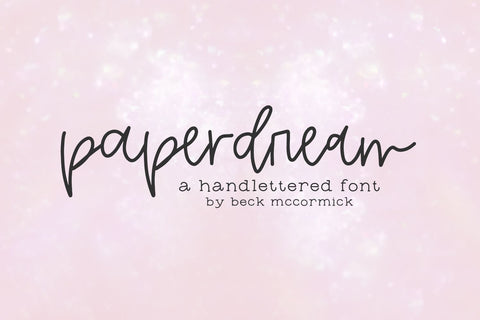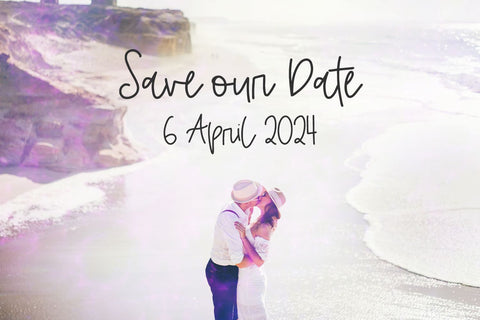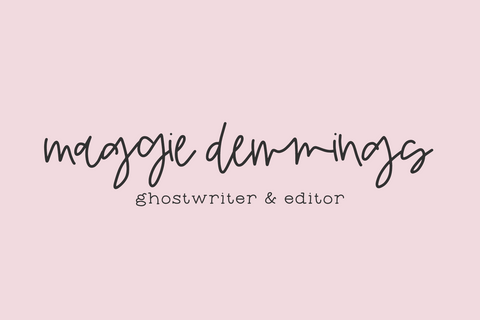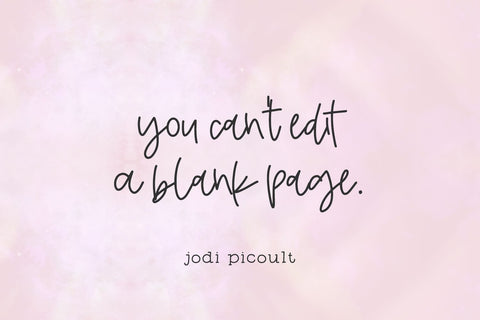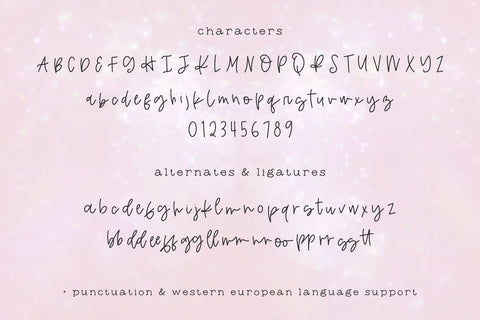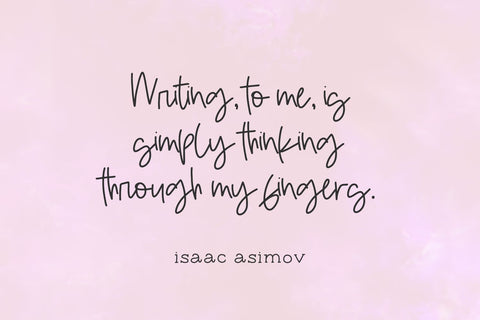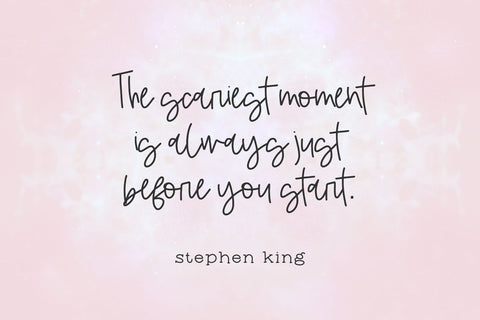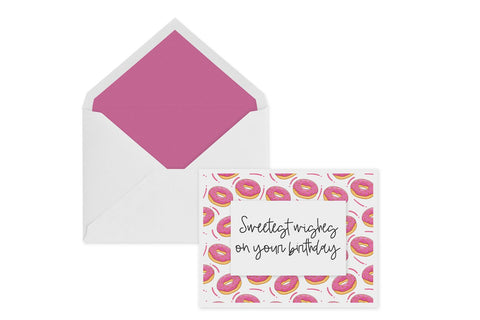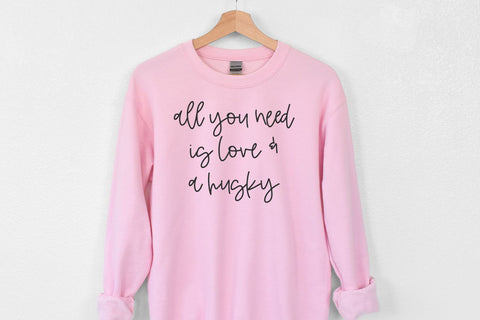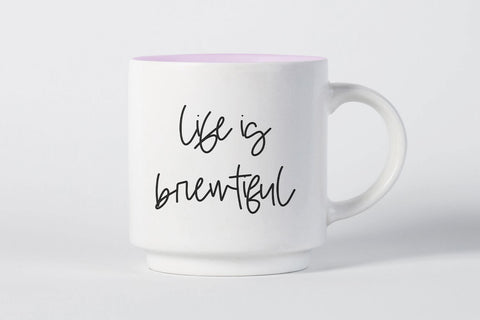
Paperdream Script Font
Introducing Paperdream, a monoline modern calligraphy font with alternates & ligatures.
- full upper + lowercase characters
- numbers + punctuation
- Western European Language Support
- 26 alternates
- 13 ligatures - bb, dd, ee, ff, gg, ll, mm, nn, oo, pp, rr, ss, tt